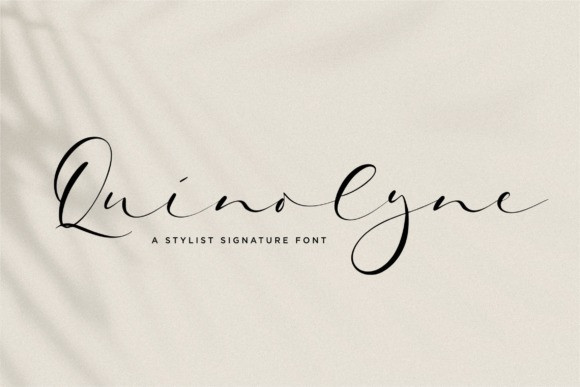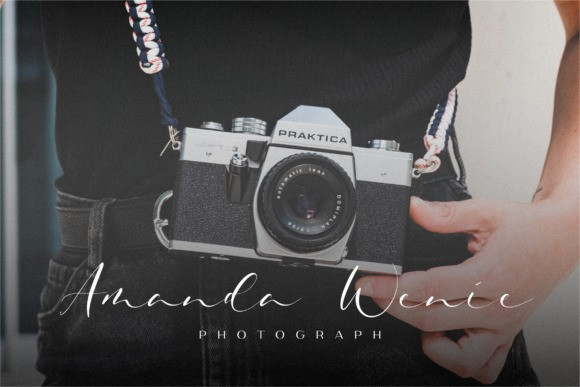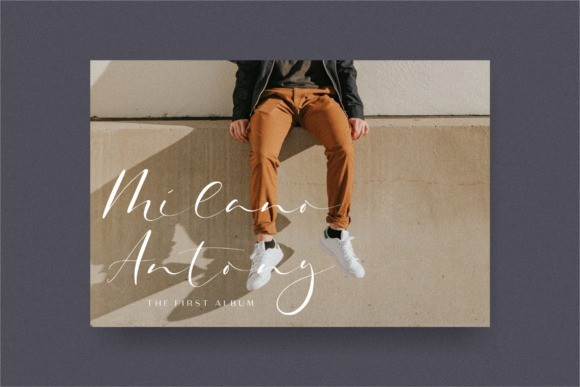
Quinolyne Font
Quinolyne is an enchanting handwritten font. This versatile script font has a wide spectrum of applications ranging from greeting cards to headlihttps://www.creativefabrica.com/product/quinolyne/nes and is guaranteed to add a romantic feel to your next project.